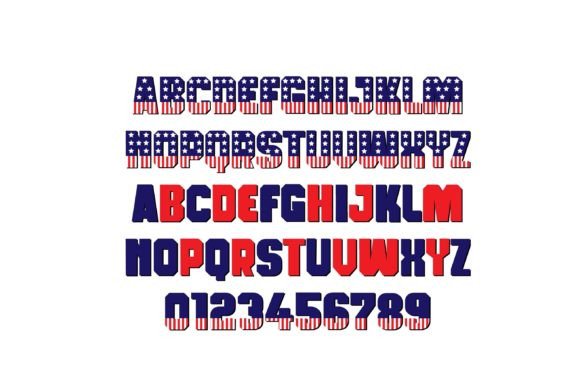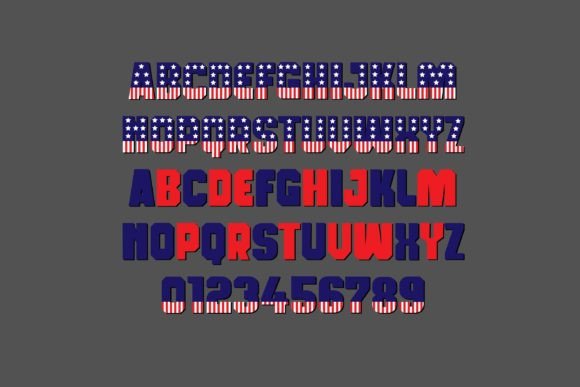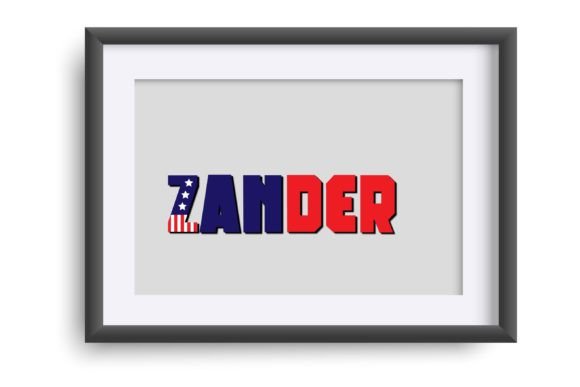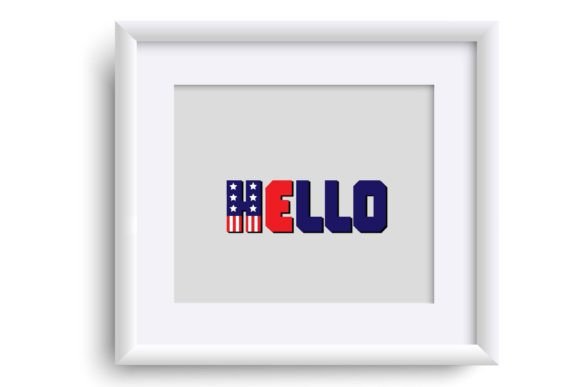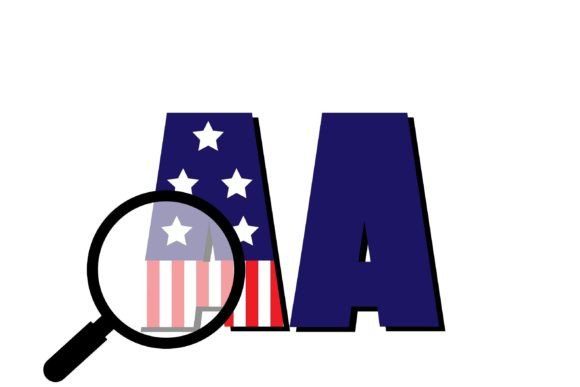
The Hero Font: A Bold, Blocky, and Americana-Inspired Typeface
I’ll never forget the design project that led me to discover the Hero Font. I was working on a branding campaign for a small business, and I needed a font that would evoke a sense of nostalgia and patriotism. After hours of scouring font libraries and online marketplaces, I stumbled upon this full-color font featuring blocky, Americana lettering with a bold red, white, and blue color palette. It was love at first sight! 💕
So, what do I love about the Hero Font? Here are a few things that make it stand out:
- ✨ Unique color palette: The red, white, and blue colors are perfectly balanced to create a bold and eye-catching effect.
Of course, no font is perfect, and there are a few quirks to be aware of:
The Design Story Behind the Hero Font
The Hero Font was designed by a team of creatives who wanted to capture the essence of Americana typography. Inspired by classic fonts from the 1950s and 60s, they created a bold, blocky typeface that would evoke a sense of nostalgia and patriotism. With its unique color palette and OpenType features, the Hero Font is perfect for designers, crafters, and creative hobbyists who want to add a touch of Americana to their projects.